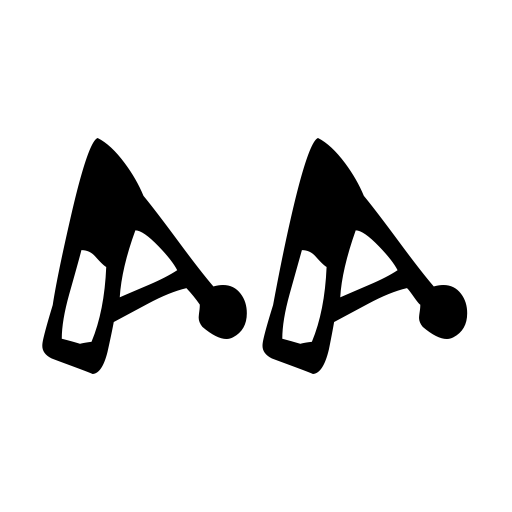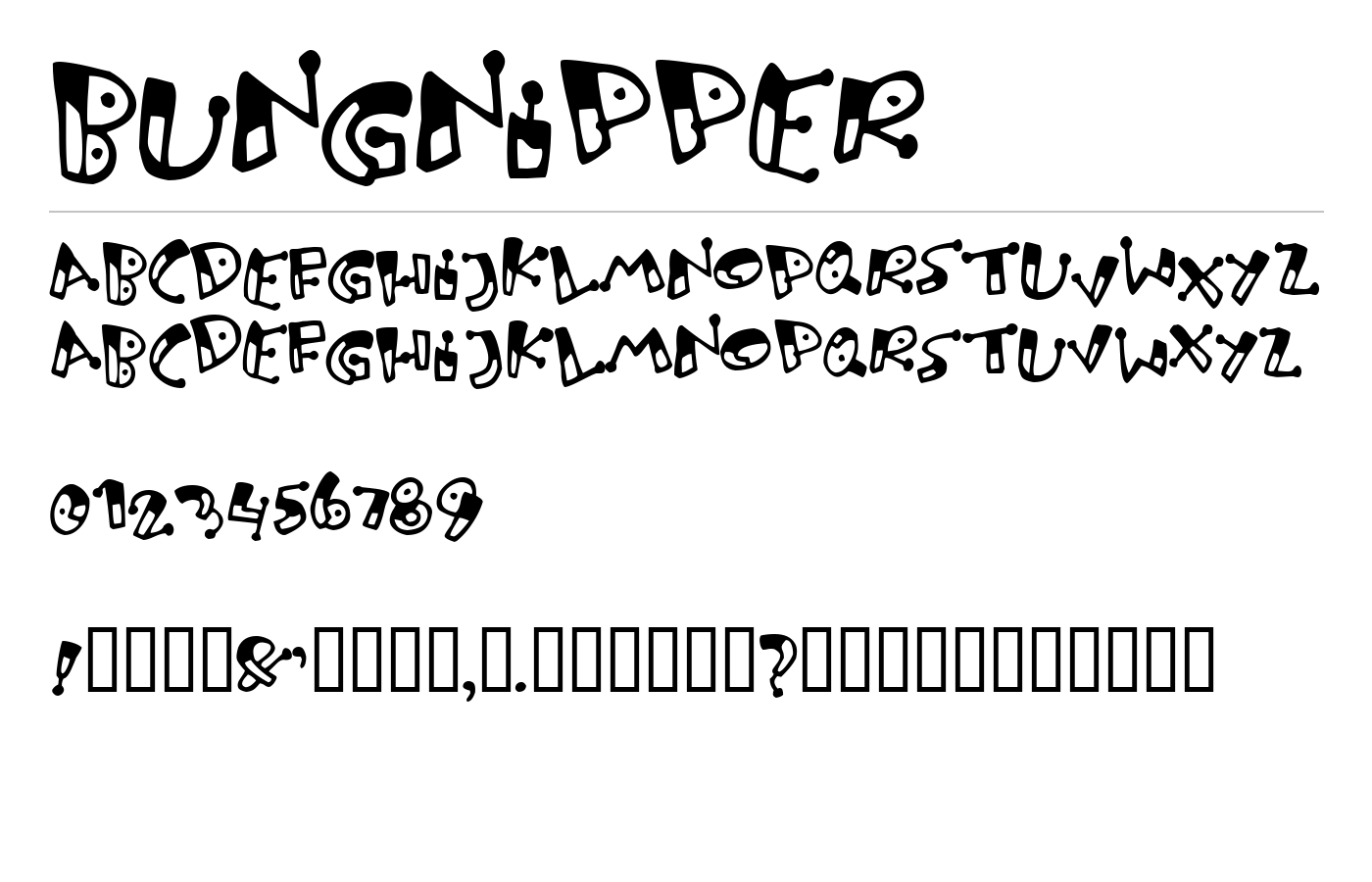
Bungnipper is a playful, hand-drawn sans serif font with an irregular, whimsical style that features quirky shapes and varied stroke widths. Its bold, informal character makes it ideal for creative projects, children's books, or any design needing a fun and approachable vibe. This font works best in headlines, posters, and branding where a lively, unique personality is desired.
Bungnipper Font
About Bungnipper Font